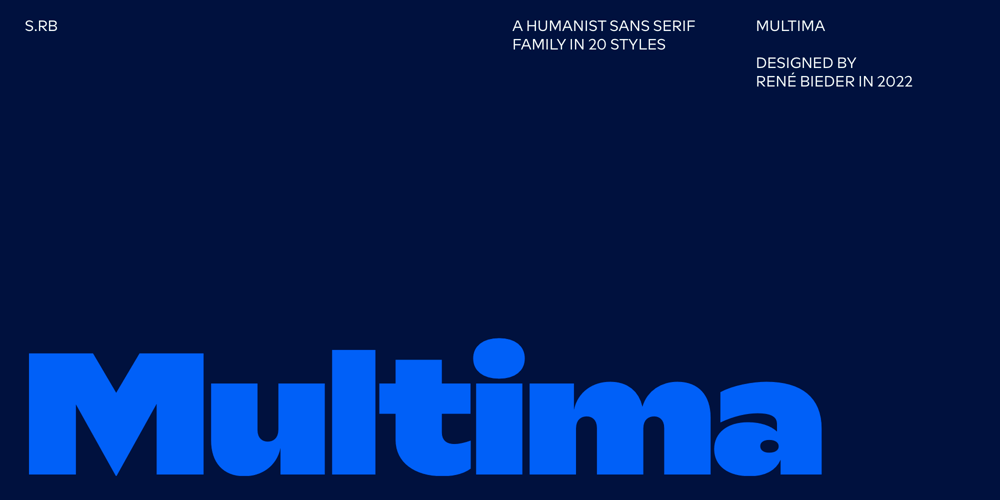
Multima Font Family was designed by René Bieder and published by René Bieder. Multima contains 20 styles and family package options. During the revolutionary 1960s, Roger Excoffon’s Antique Olive emerged as a striking counterpoint to the prevailing dominance of neutral, sans-serif typefaces. It introduced a new aesthetic paradigm that challenged convention and ignited a wave of creative exploration. Building upon this iconic legacy, the Multima family picks up the torch, carrying the essence of this rebellious spirit into the 21st century. Multima exudes the same raw power and energy as a sleek Formula 1 racing car, effortlessly captivating attention with its dynamic presence. Just like a versatile Swiss army knife, Multima showcases its multifunctional nature, offering a range of typographic tools to tackle diverse design challenges with precision and versatility. Multima embraces the past while embracing the demands of the present, embodying the timeless fusion of innovation and functionality. It stands as a testament to the enduring impact of Roger Excoffon’s vision, while paving the way for a new era of typographic exploration.